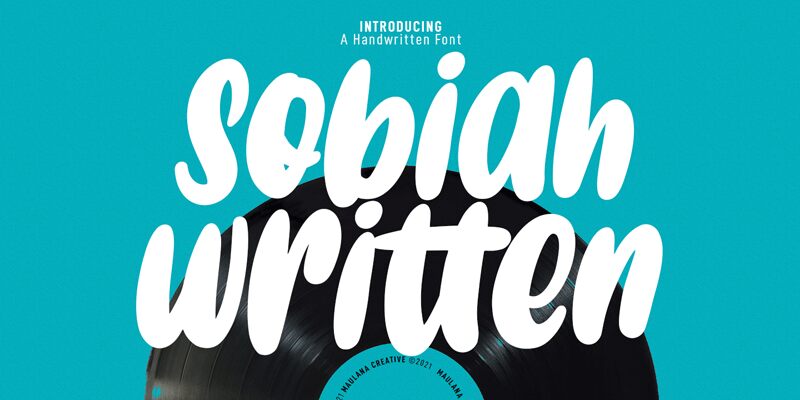
Sobiah Written Free Regular
Looking for a bold and smooth brush font that's perfect for cartoon-themed projects? Look no further than Sobiah Written! This condensed typeface from Maulana Creative features clean lines and a playful, whimsical style that's sure to bring your designs to life. With its bold weight and smooth brush strokes, Sobiah Written is ideal for logos, posters, packaging, and more. Whether you're designing a children's book cover or creating fun graphics for a website or social media campaign, this versatile font is sure to make your work stand out from the crowd.